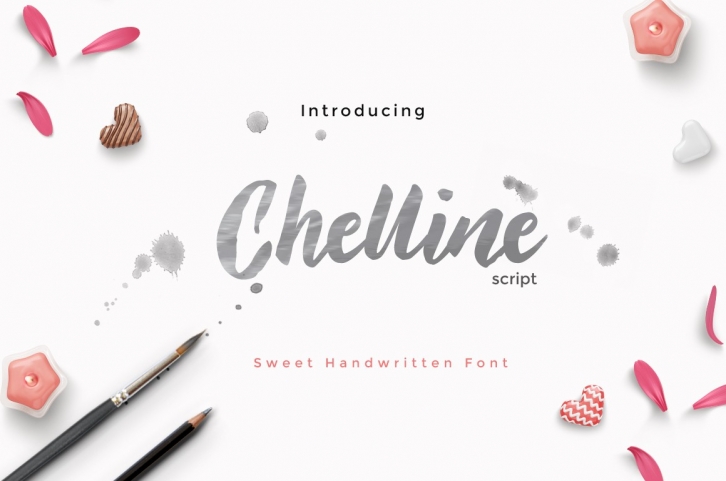
Chelline Brush is a gorgeous font that was realeased on August 10, 2018. The font can be used in many style contexts and design environments. Perfect for invitations, magazines, websites, logos, and more! It was designed by cooldesignlab and the file size is 7.13 MB. Thanks for checking out this font!